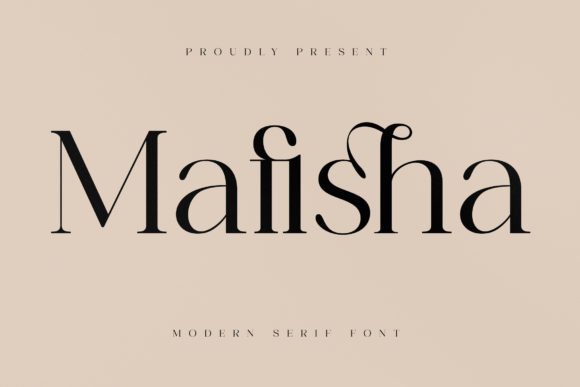
Prepare to be mesmerized by Mafisha, the exquisite serif typeface that will elevate your creations to new heights. Its timeless elegance and modern flair make it an ideal choice for a wide array of projects.
Picture a captivating logo that exudes sophistication, effortlessly drawing attention to your brand. With Mafisha, your book or movie titles will radiate an air of mystery and intrigue, leaving an unforgettable impression. Unleash your creativity in fashion design, where Mafisha's graceful curves will add a touch of refinement to your garments.
But that's not all. Mafisha's versatility extends to magazines, where its timeless style will enhance every page. Its delicate strokes will add an air of sophistication to your quotes, making them both visually appealing and deeply resonant.
Embrace the possibilities with Mafisha. Its carefully crafted glyphs and ligatures offer endless opportunities for customization, empowering you to express your unique vision. Whether you're a seasoned designer or just starting your journey, Mafisha will become an indispensable tool in your creative arsenal.